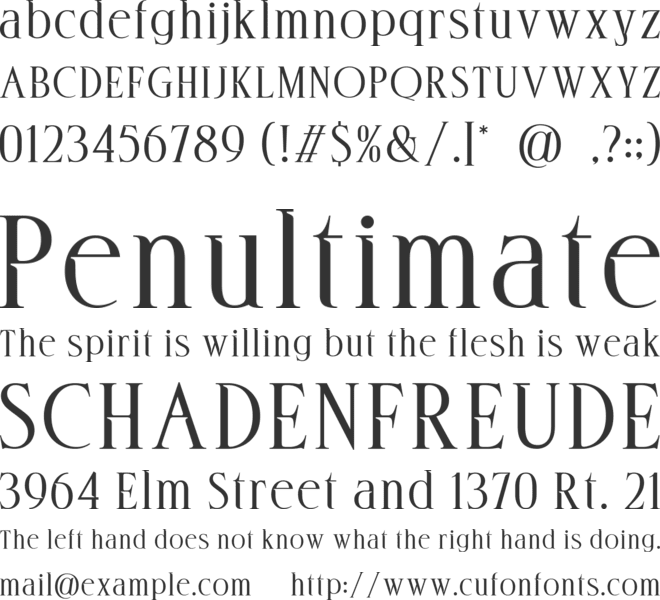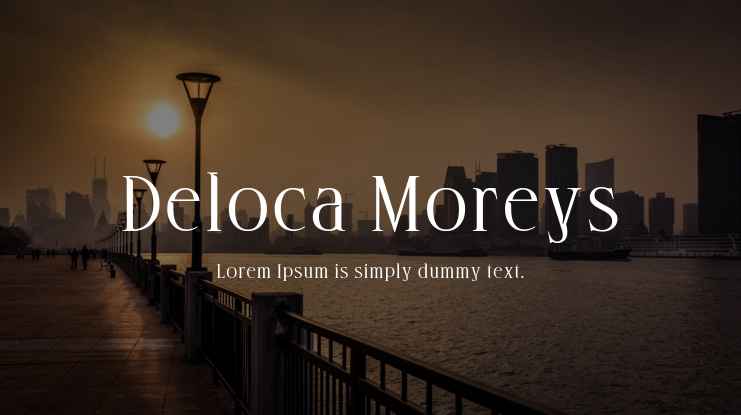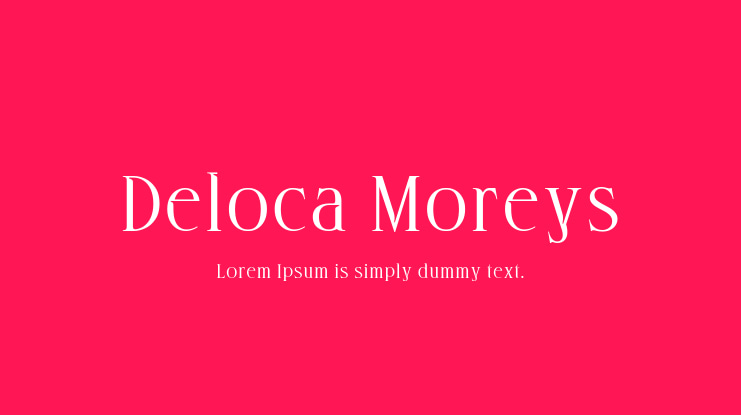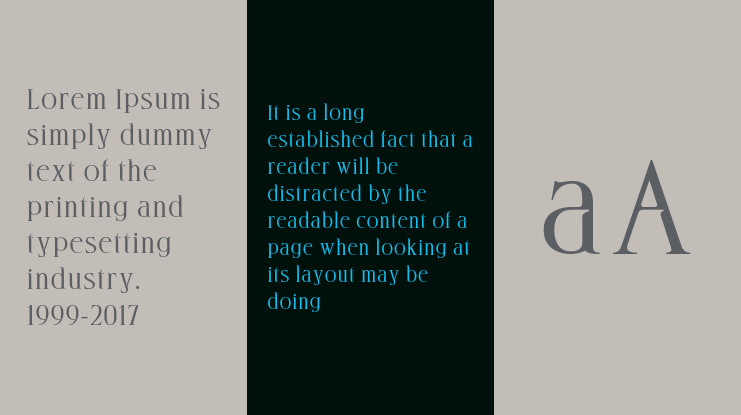
Deloca Moreys Font
Deloca Moreys is a sophisticated and feature-packed serif typeface, meticulously crafted for designers who demand elegance, versatility, and creative freedom in their projects. Created by Alit Design Studio, this font blends timeless serif elements with modern twists, making it the perfect choice for high-end, editorial, and artistic designs.